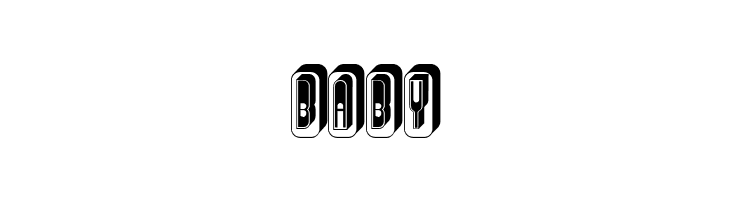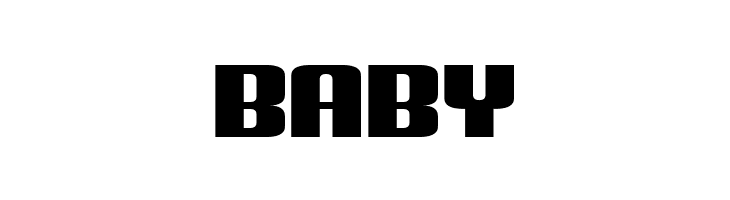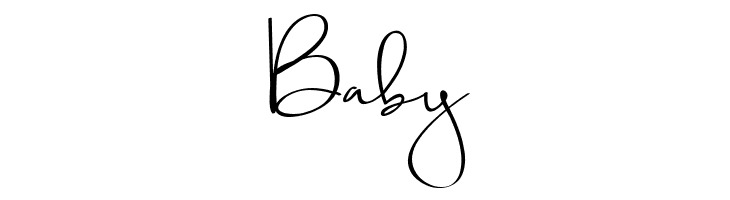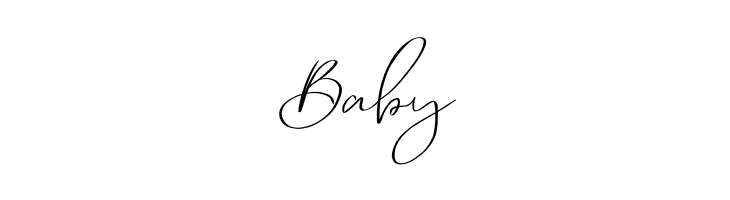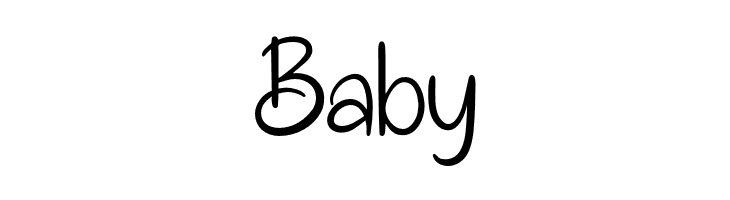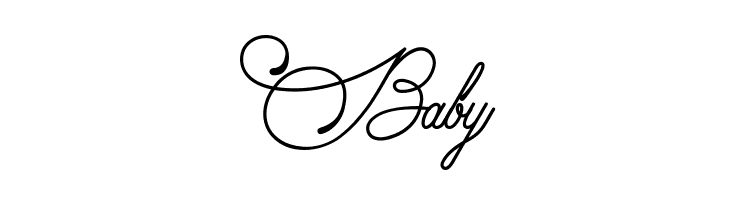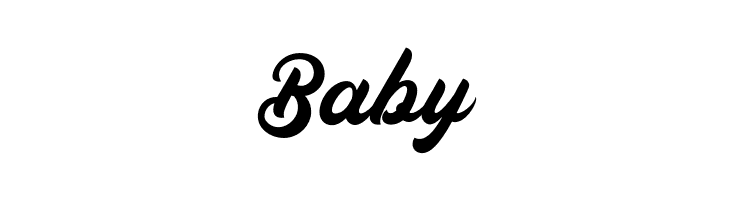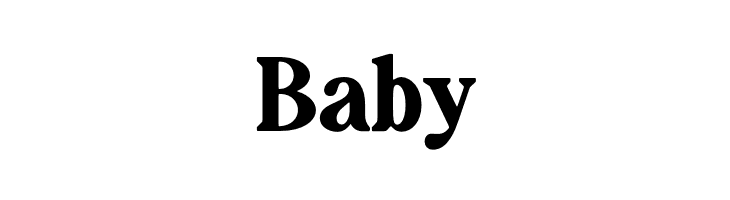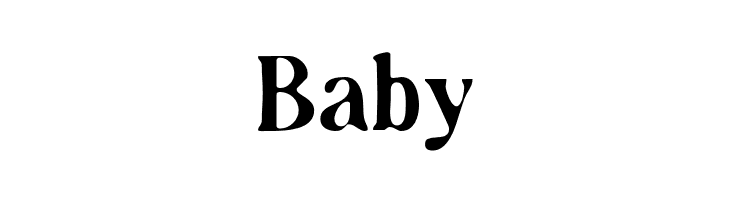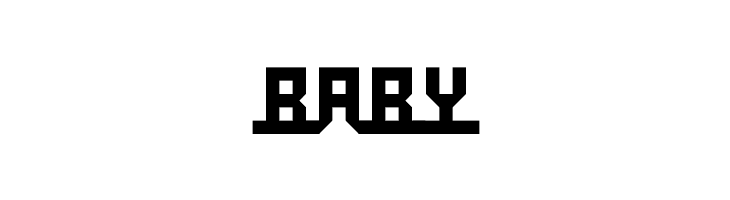
• Atusan_Script
A bold, flowing script font with elegant curves and artistic flair.
• Atyla Demo
An elegant script font with intricate flourishes and a calligraphic style.
• Atziluth-Script
A graceful and elegant script font with flowing, cursive letterforms.
• Aubrielle-Regular
A playful, whimsical script font with flowing, interconnected letters.
• AubrietaDEMO-Regular
• Auburn
• Auckland Hills
A bold, modern script font with interconnected characters and a fluid, elegant style.
• Auckland Signature
An elegant script font with smooth, flowing lines and a handwritten style.
• AucklandScriptFree
A bold, cursive script font with elegant, flowing characters.
• Auction
A whimsical, decorative font with bold, playful curls and exaggerated serifs.
• AudacityScriptDEMO
A bold, elegant script font with a flowing, handwritten style.
• Audex
A bold, geometric font with rounded edges and a modern, futuristic style.
• Audex Italic
A modern, sleek italic font with smooth curves and a dynamic style.
• Audience Capitals Regular
A bold, three-dimensional font with a strong shadow effect and rounded rectangular shapes.
• Audience Regular
A bold, three-dimensional font with geometric shapes and shadowed outlines.
• audio 2012 Regular
A bold, futuristic font with geometric shapes and strong lines.
• Audrena
An elegant, calligraphic script font with intricate, flowing letterforms.
• Audrey Kids
A playful, rounded font with a hand-drawn, whimsical style.
• Audrey_Demo
A graceful and elegant script font with fluid lines and delicate curves.
• AudreyMiragesDEMO
A bold, expressive font with classic yet modern appeal and unique flourishes.
• Aufal Regular
A bold, geometric font with a modern, futuristic design.
• AufmBauConstructions